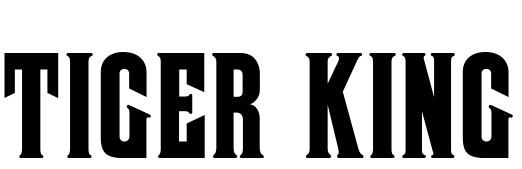
Tiger King Font
DocumentaryTiger King is a Netflix miniseries that tells the story of eccentric big cat enthusiast Joe Exotic and his rivalry with animal rights activist Carol Baskin, culminating in a murder-for-hire plot.
The font used for the title on the poster is likely to be either the "WTC Banger" from Borutta Group or "MPI No. 507". Both fonts have a similar appearance to wood type from the late nineteenth century, but "WTC Banger" has a grunge texture while "MPI No. 507" has a solid appearance. You can view more information about the fonts here and here respectively.